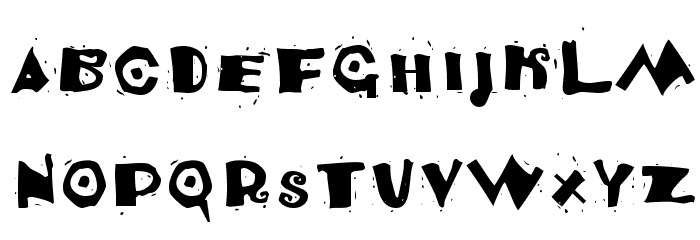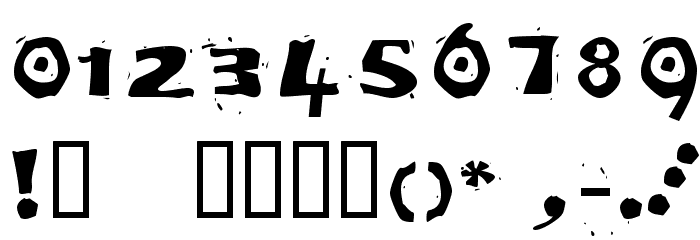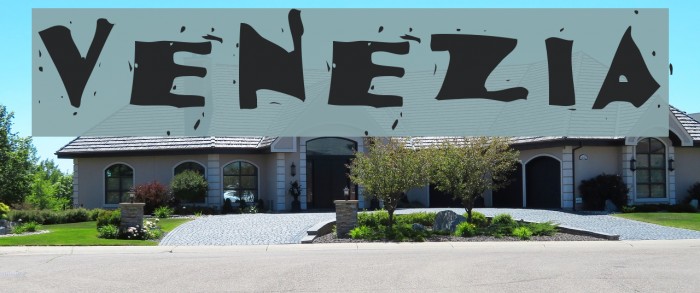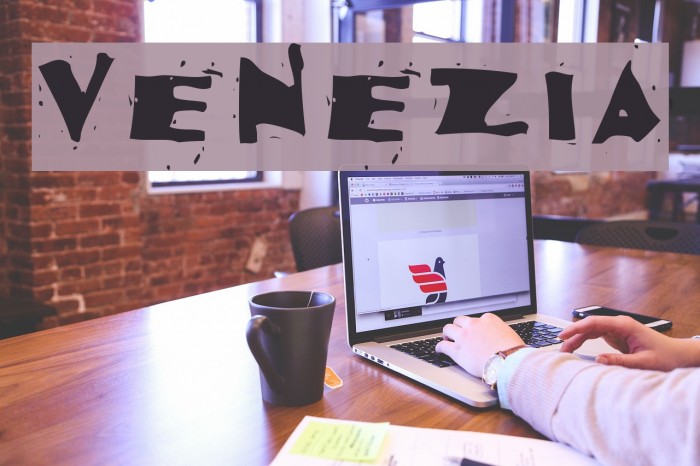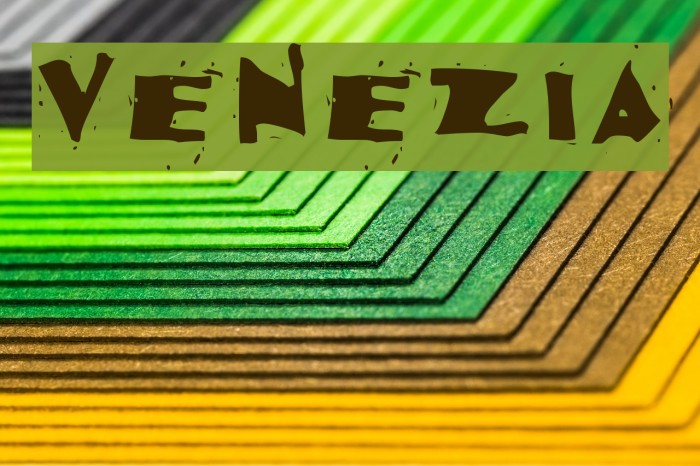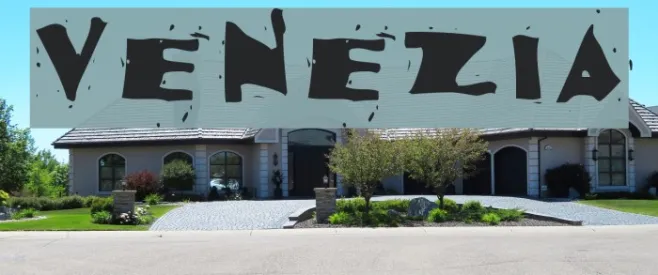
Venezia Font
This font exhibits a playful and artistic style, characterized by its irregular and whimsical letterforms. Each character appears to have a unique personality, with varying stroke thickness and decorative elements that give it a hand-drawn, almost graffiti-like appearance. The uppercase and lowercase letters maintain a consistent theme, with some letters featuring exaggerated serifs or unexpected curves. The numbers and special characters continue this creative approach, making the font suitable for projects that require a bold and unconventional look.
A playful, artistic font with irregular, whimsical letterforms and decorative elements.
- Proposed Projects: Ideal for creative projects such as posters, album covers, children's books, and branding that seeks a unique and artistic flair.